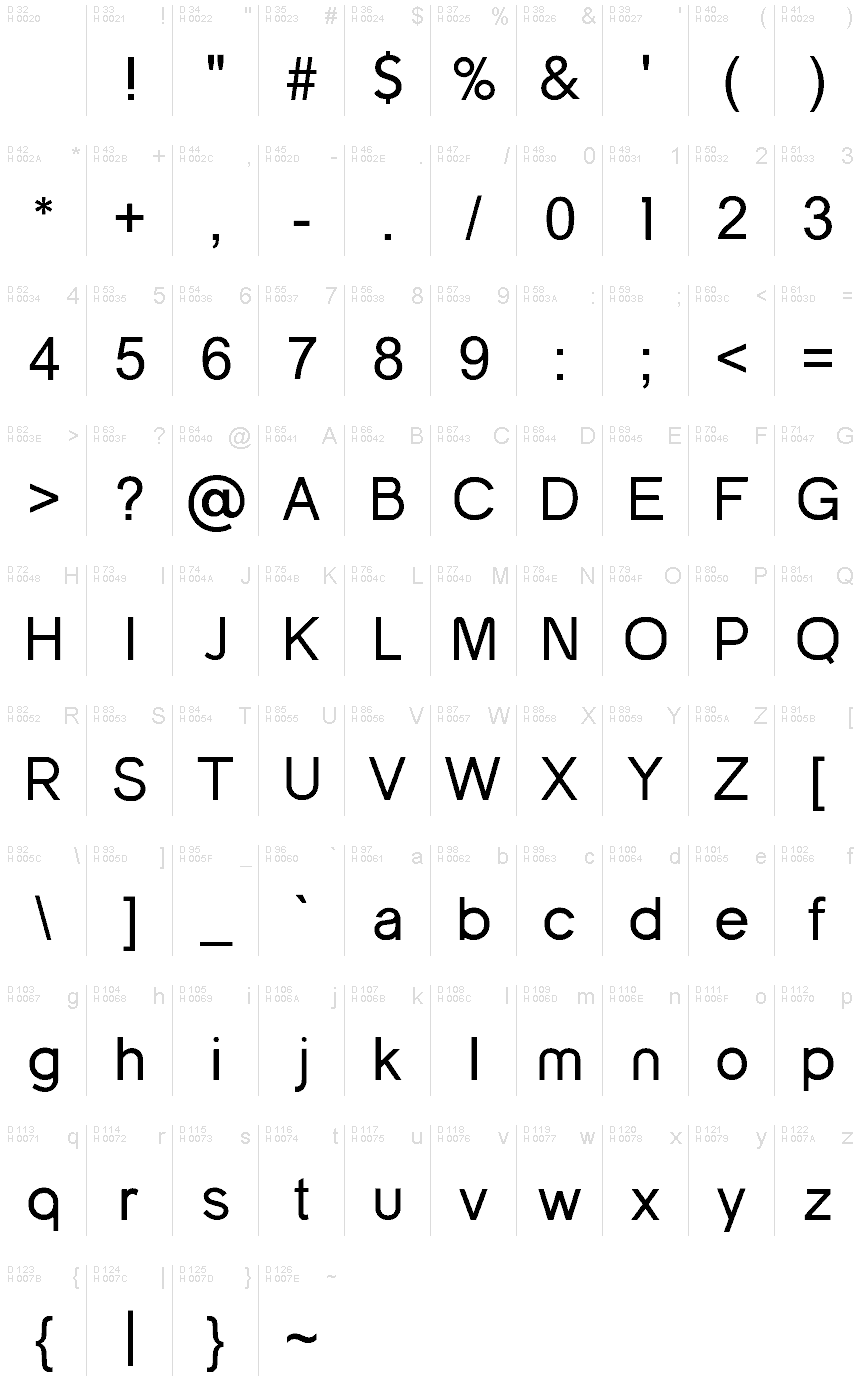
WONDERLAND PRO Regular
This sans serif font is a masterpiece that mixes vintage and modern elements to produce an impressive effect. This is the free Wonderland Pro font, designed by UI Creative.
This font is the perfect choice when you want to add a magical touch to your projects or whenever you need to convey a sense of wonder and mystery. The Wonderland Pro sans serif font will be perfect for book and comic covers and posters and for video or movie titles. It is also the ideal font for business card and logo designs and for personal branding projects where you need to mix formality and creativity.